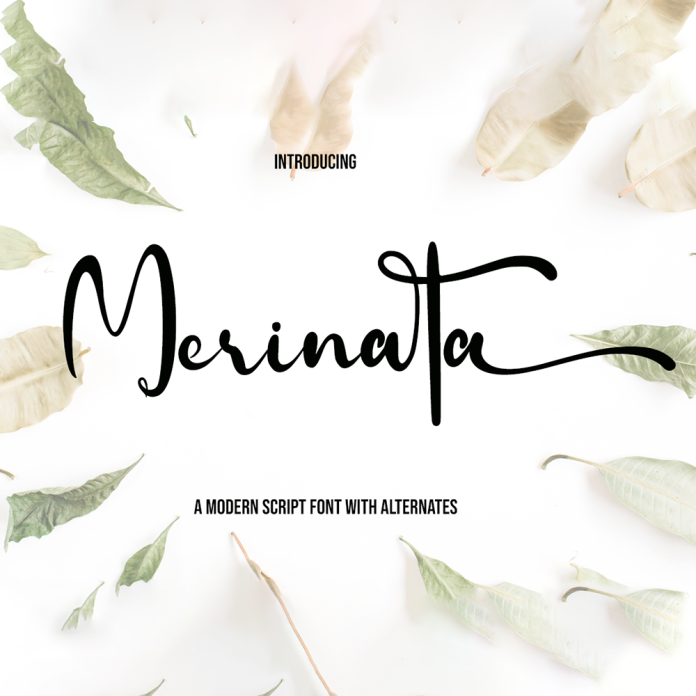
Merinata font is a premium script font with a sleek and elegant style. Its flowing characters and intricate details make it perfect for luxury branding, invitations, and editorial designs. The font exudes sophistication and adds a touch of class to any project.